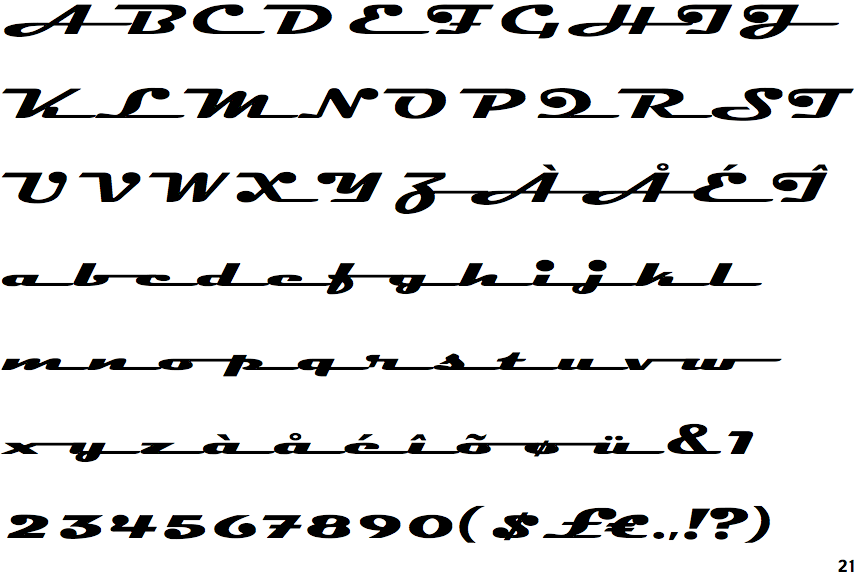
Magneto Super Bold Extended
Based on streamlined scripts popular between the 1930s and 1950s, and used on refrigerator and automobile logos. Like most script fonts, not intended for all-caps text.
Designer: Leslie Cabarga
Year: 1995
Publishers: CabargaType and Font Bureau